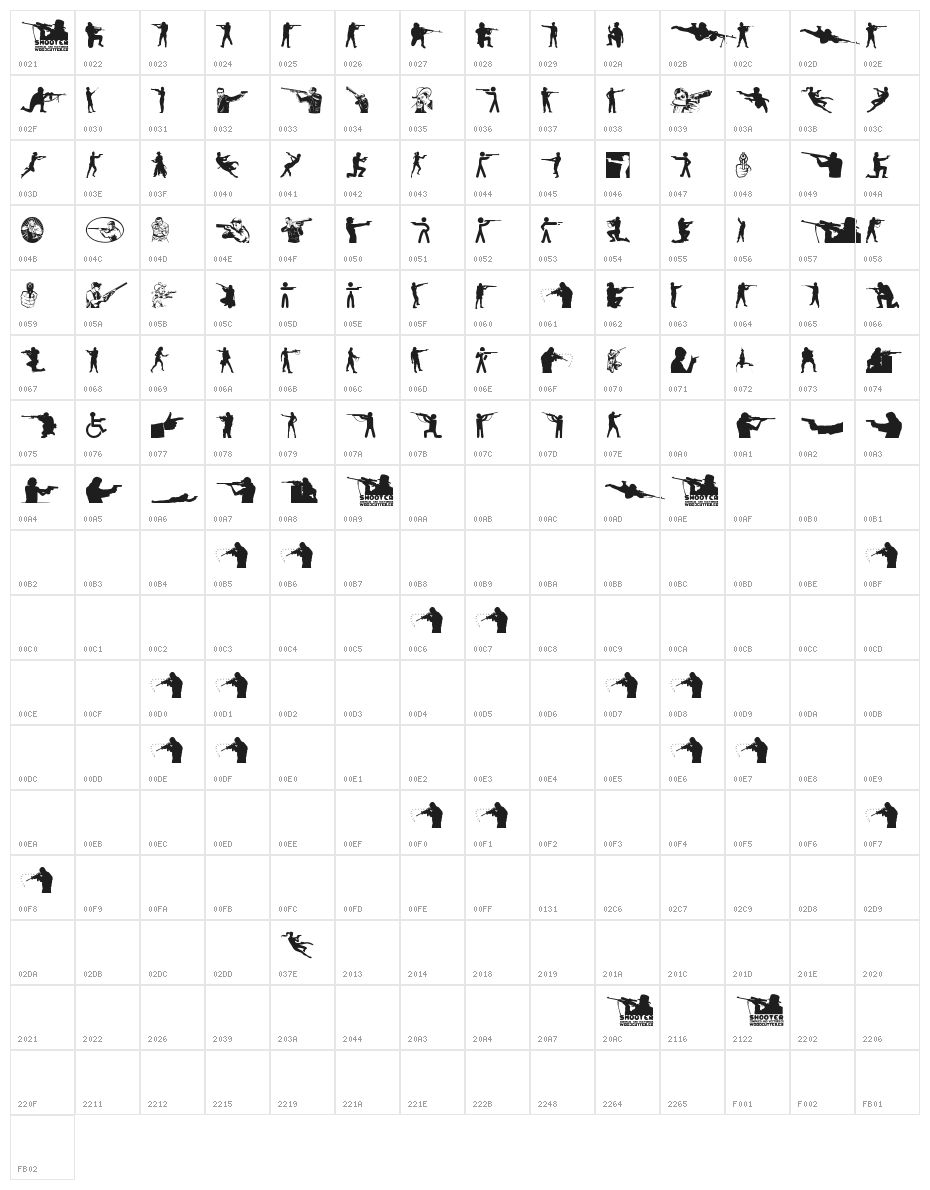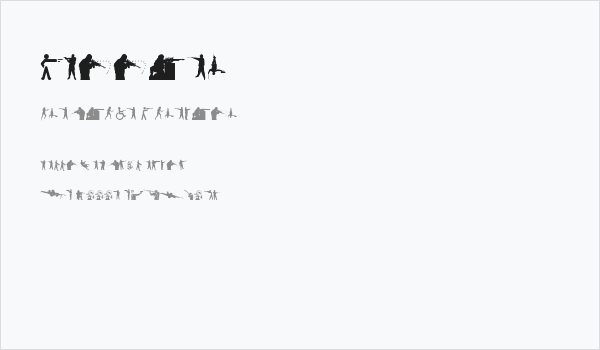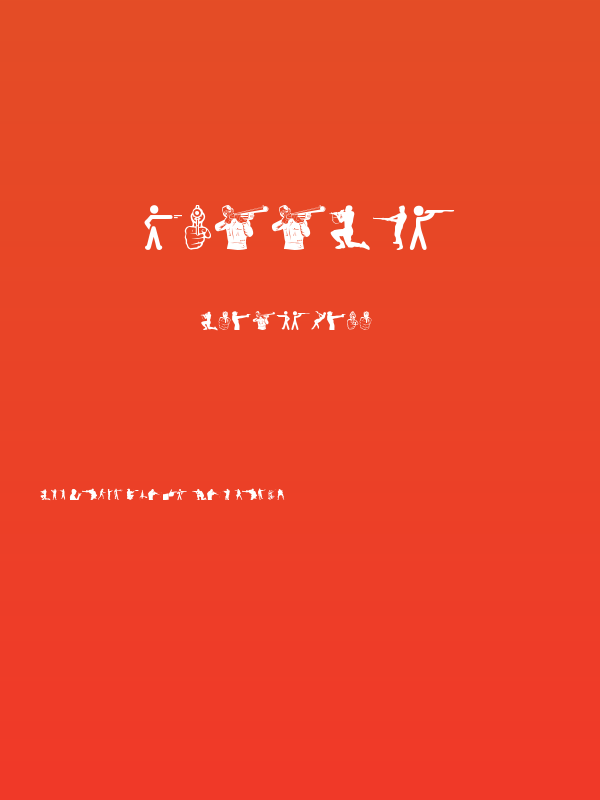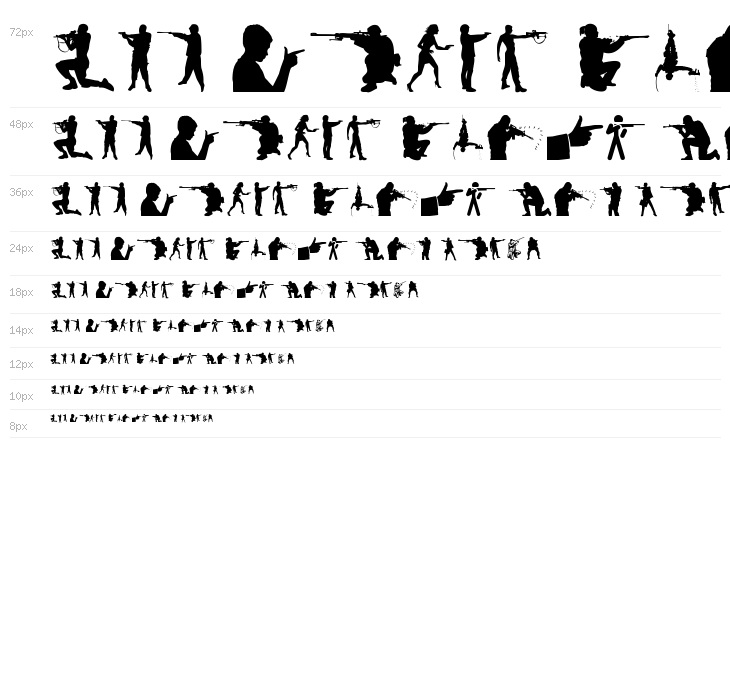
Shooter Font
Shooter Description
A pictogram-style decorative font featuring various silhouettes and illustrations of people in shooting stances, with a mix of stick figures, detailed characters, and comic-style images. The glyphs are highly illustrative, not traditional letterforms.
Overall StyleDecorative, Action-themed
Use CaseLogos, Posters, Themed Graphics
Proposed ProjectsPosters, video game titles, themed party invitations, signage for shooting ranges, graphic design projects needing action or combat motifs.